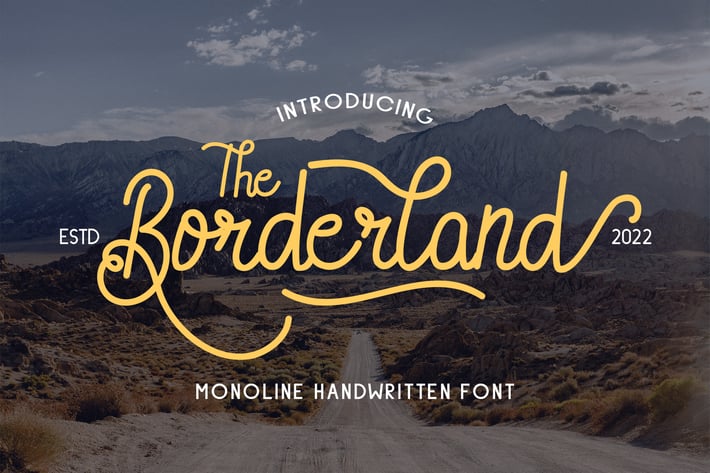
Borderland - Monoline Handwritten Font
Introducing Borderland, is a Monoline Handwritten Font has many purpose and suitable for badges, logotype, signature, fashion, luxury, invitation, wedding event, modern, classic modern, advertising and much more
- Available Ligatures and Alternates